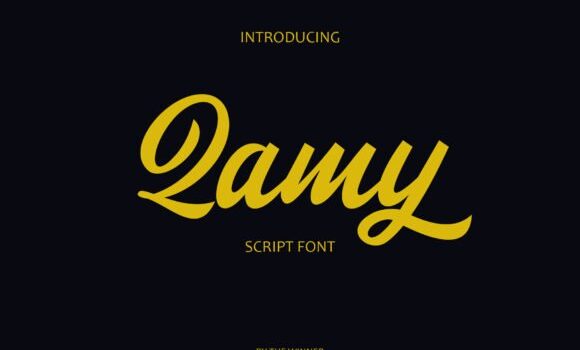
qamy
Qamy Font – Free Download Introduction to Qamy Font Qamy is a gorgeous and bold handwritten font, crafted to give your headlines and logotype projects a stylish touch. 📸 Preview Gallery 6 images 📌 Product Name Qamy Font 👤 Author